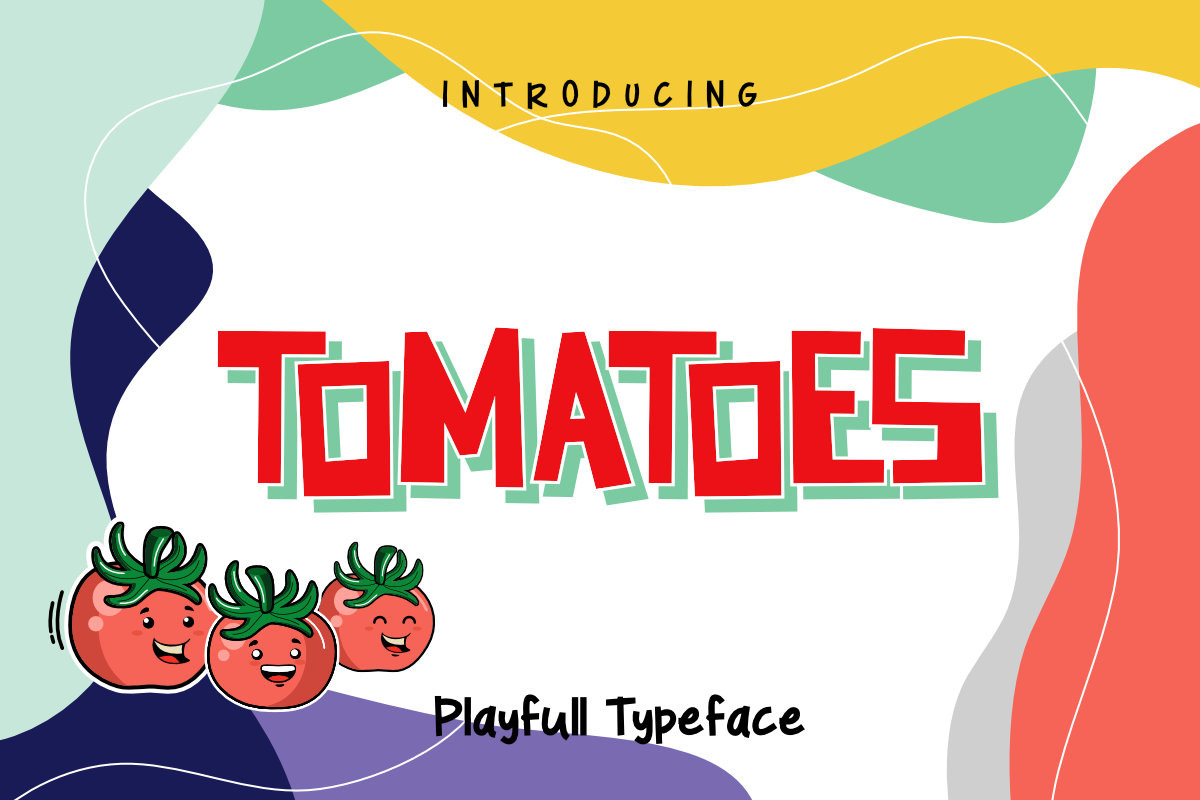
Tomatoes Playfull Typeface
Tomatoes is a font a playfull font with cheerful theme for your fun project. Tomatoes is to use for any kind of design such as branding projects, logo, social media posts, advertisements, product packaging, product designs, label, photography, watermark, invitation, stationery and any projects that need fun taste.